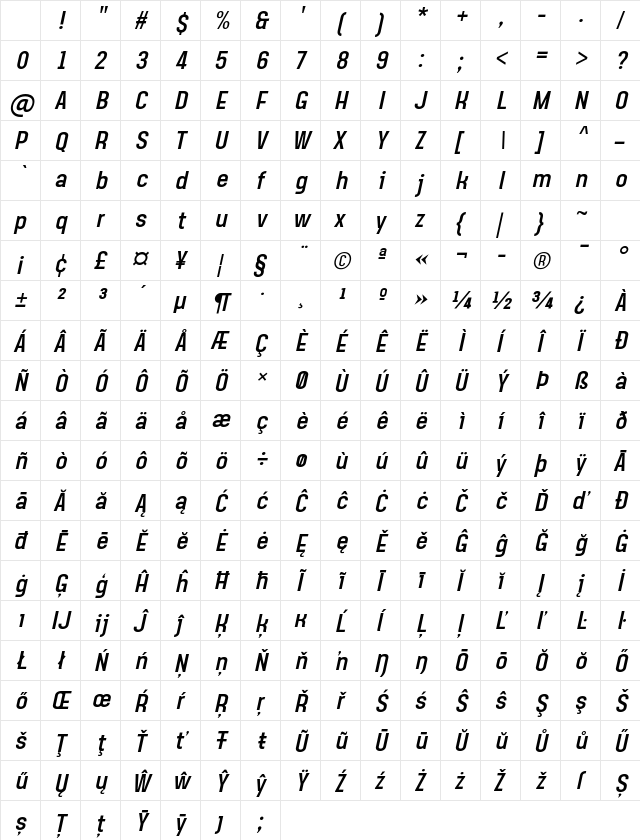
Complete Steagisler Italic glyph index. Displaying only characters natively supported by Steagisler Italic font.
Steagisler is a composed and adaptable typeface that performs quietly and consistently across a wide range of design contexts. The slanted form adds forward momentum and visual energy.
Pro Tip: Use Steagisler for emphasis, pull quotes, and subheadings where its slanted energy can add rhythm to the layout.